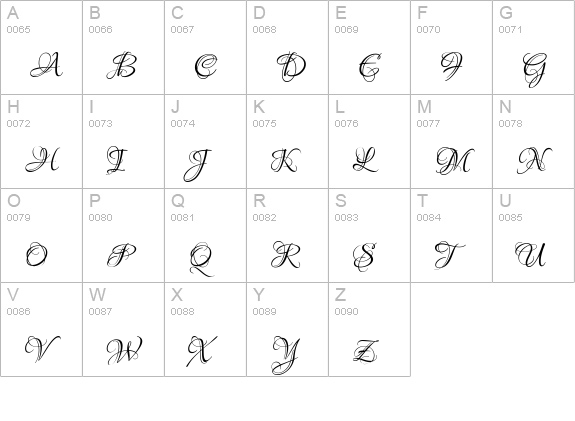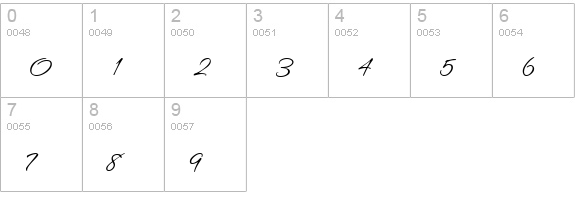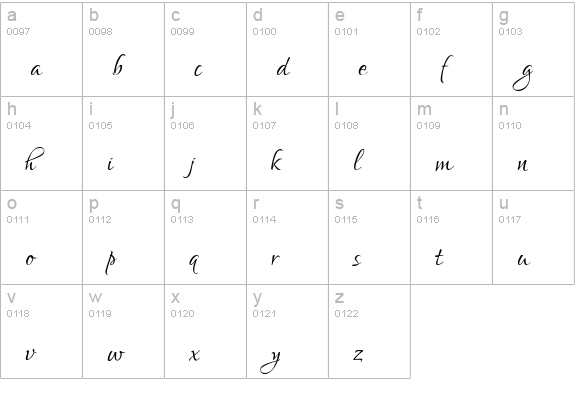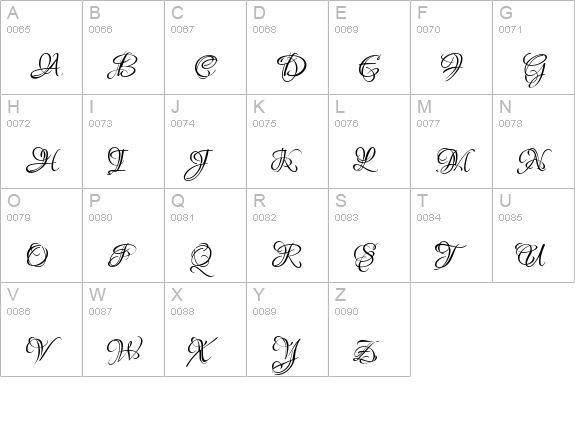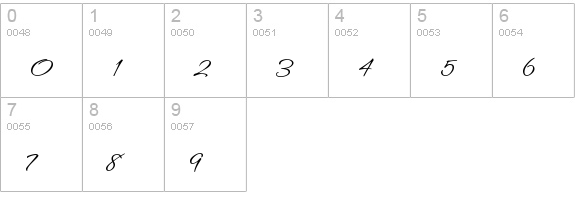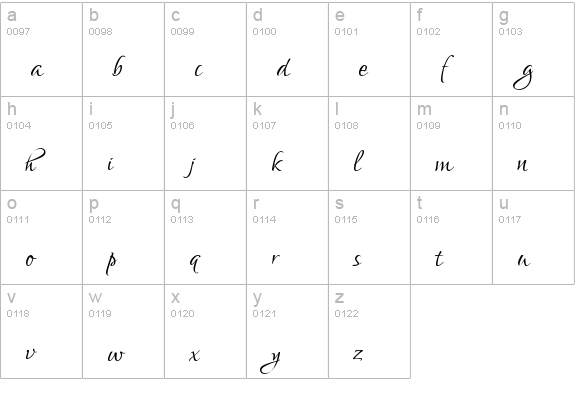
LoversQuarrelROB Font Details
LoversQuarrelROB font is a charming and whimsical typeface that brings a touch of romance to any design project. With its elegant curves and playful flourishes, this font is perfect for adding a touch of love and passion to wedding invitations, greeting cards, and more. Whether you're designing a heartfelt message or a romantic piece of art, LoversQuarrelROB font is sure to convey your emotions in a beautiful and stylish way. Best of all, LoversQuarrelROB font is available for free download at FontsMarket.com. This means you can easily add this lovely font to your collection without breaking the bank. So why wait? Download LoversQuarrelROB font today and let your creativity shine with its enchanting and expressive style.